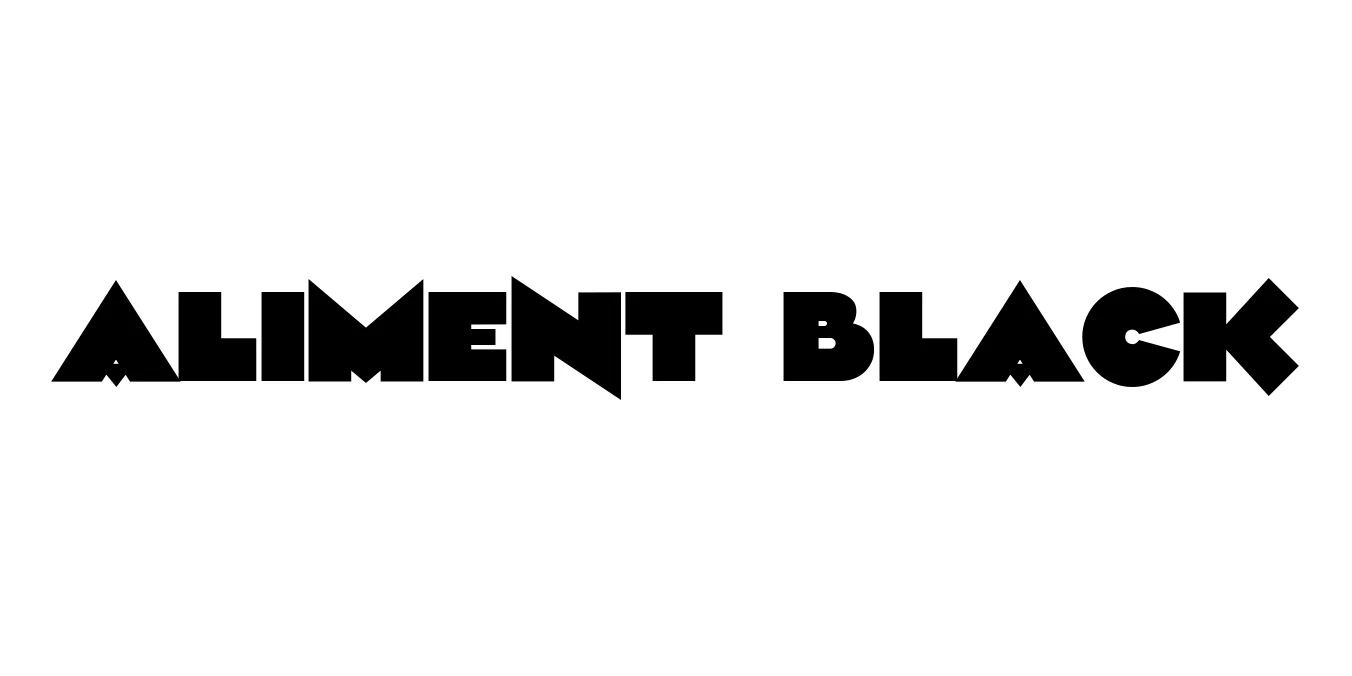
Aliment Black
Designed by Feedtype
Aliment Black is a contemporary sans-serif typeface designed by Feedtype, rooted in the principles of mid-century modernism and industrial efficiency. This particular weight serves as the anchor of the Aliment family, providing a dense, authoritative presence that demands attention in any layout. Its construction features a harmonious blend of geometric precision and subtle humanist touches, ensuring that the heavy strokes do not compromise the font's inherent legibility.
Throughout its development, the focus remained on creating a typeface that could bridge the gap between technical utility and aesthetic elegance. Aliment Black is characterized by its high x-height and distinctive terminal cuts, which lend a crisp, sharp edge to printed and digital compositions. It has become a staple for designers looking to convey a sense of strength, reliability, and modern sophistication in high-profile branding projects and editorial layouts.
Aliment Black Best Uses
Perfect for high-impact titles and large-scale signage.
Ideal for creating strong, memorable corporate identities.
Works exceptionally well for bold graphic overlays on visual content.
Provides a clean and modern look for consumer product labels.